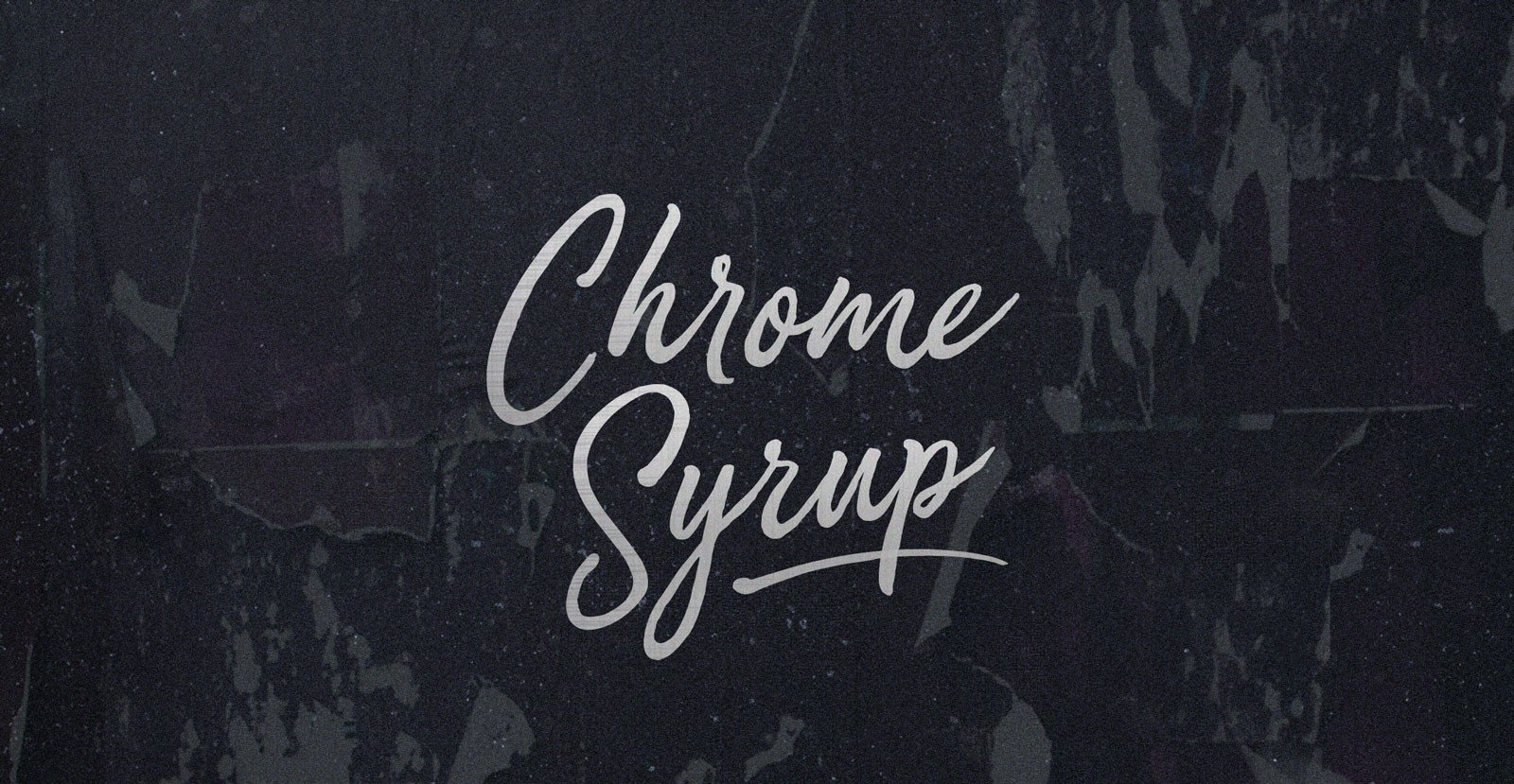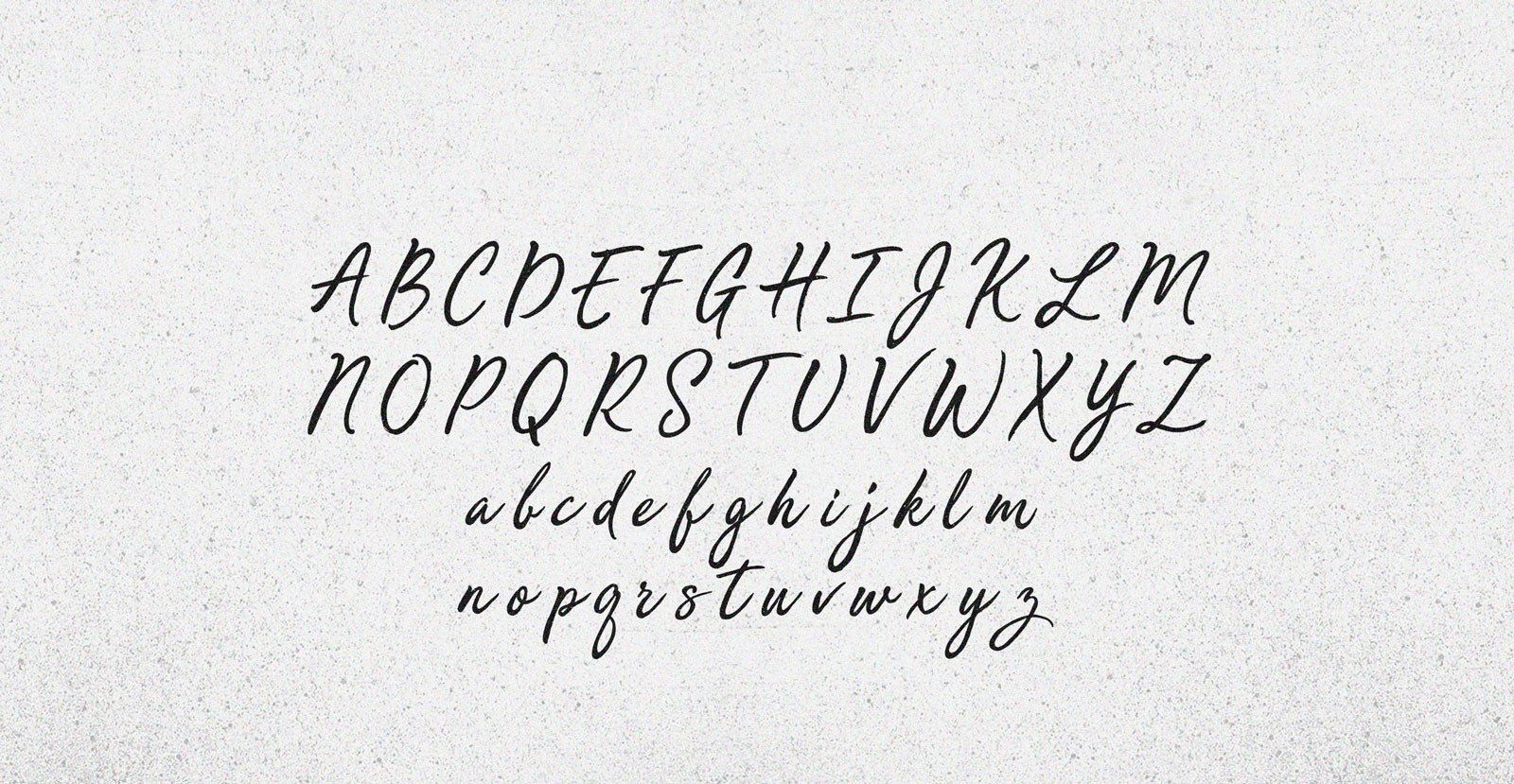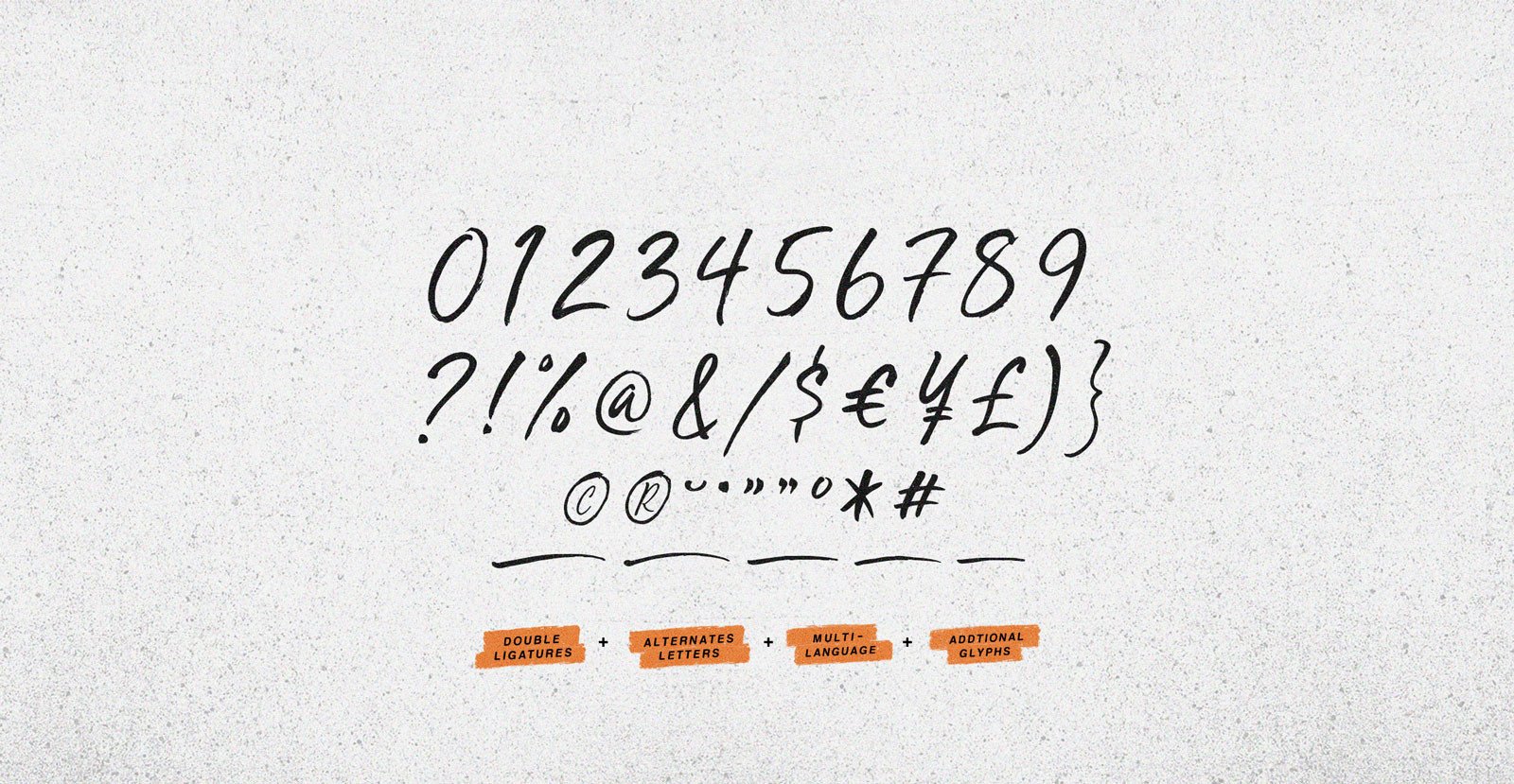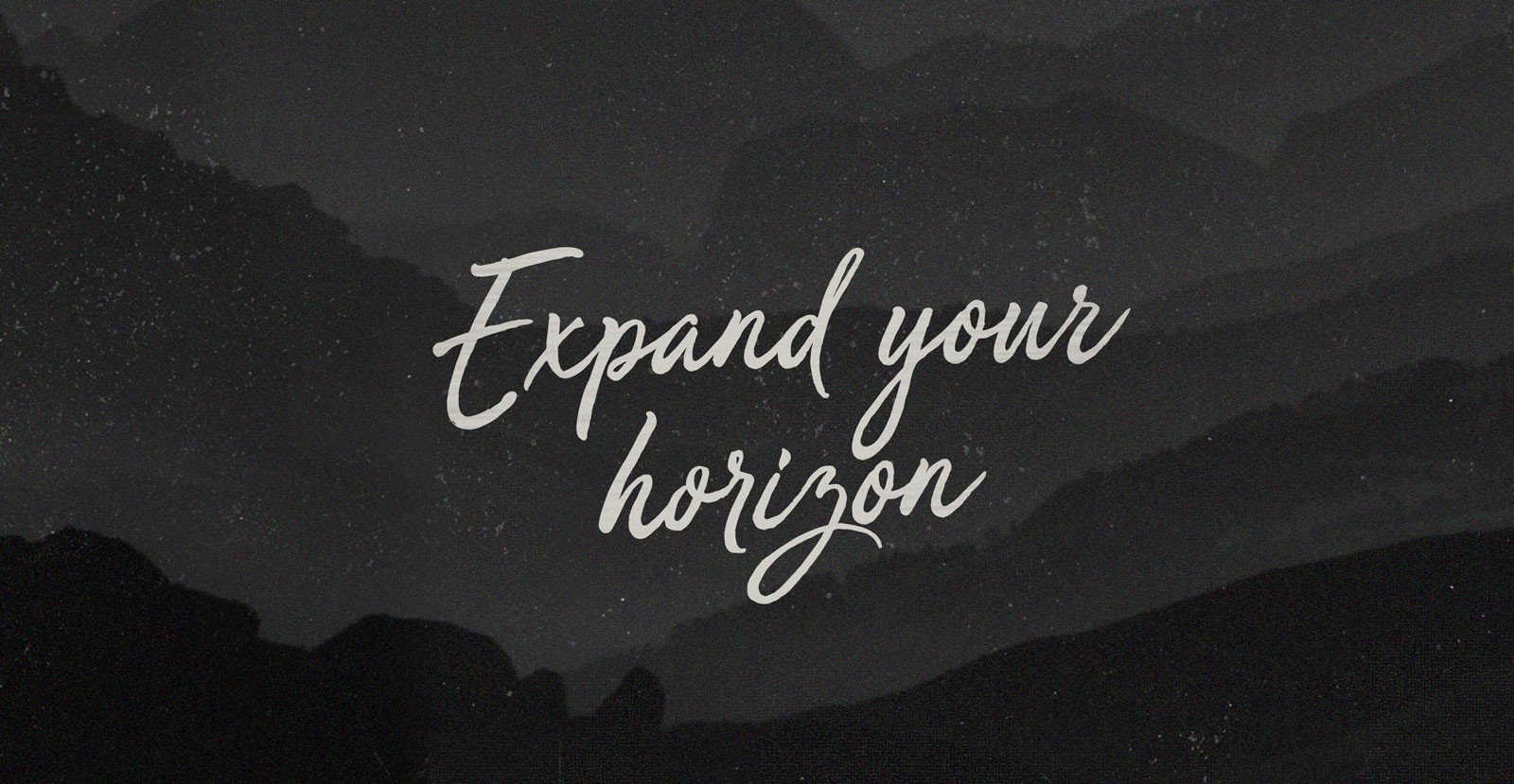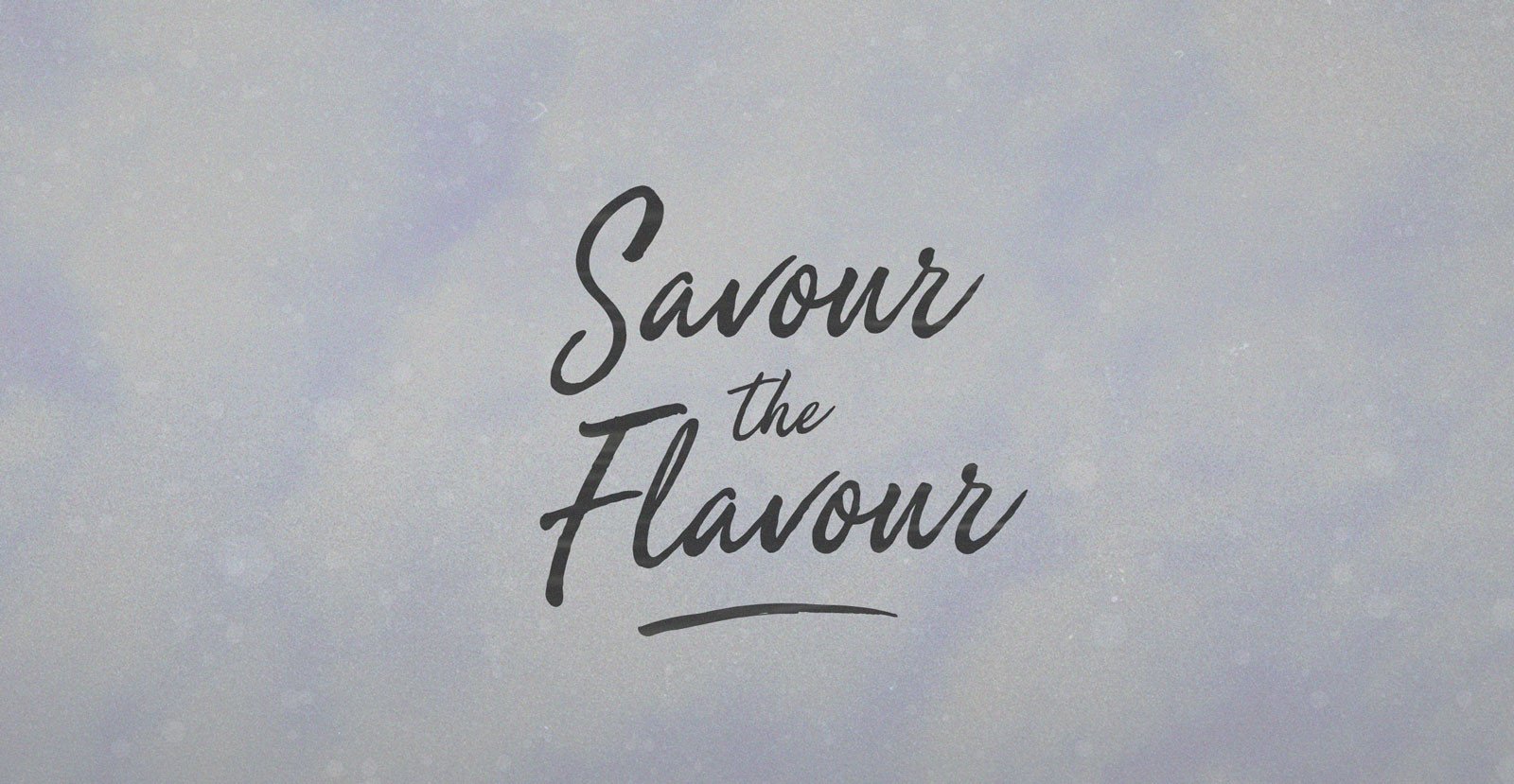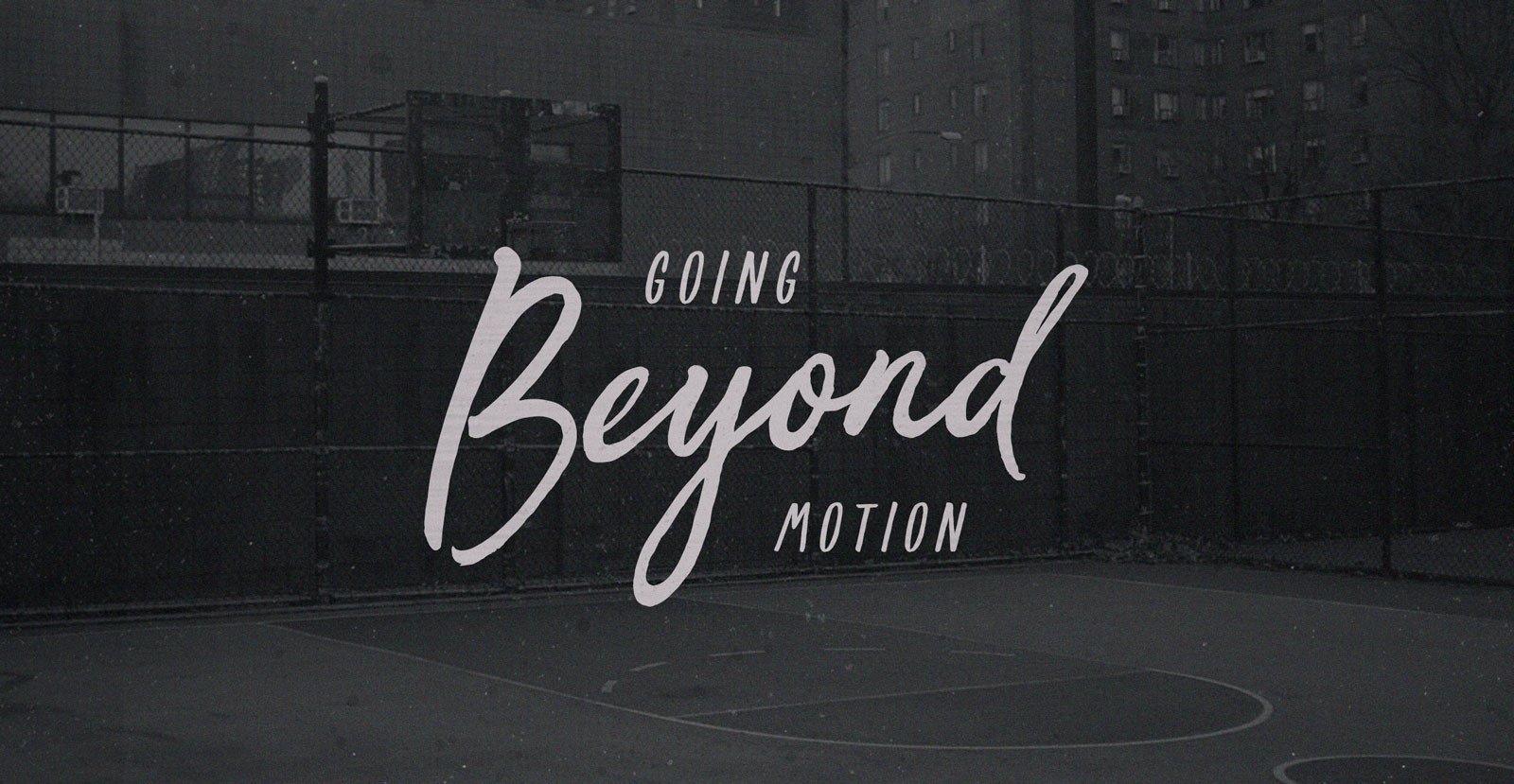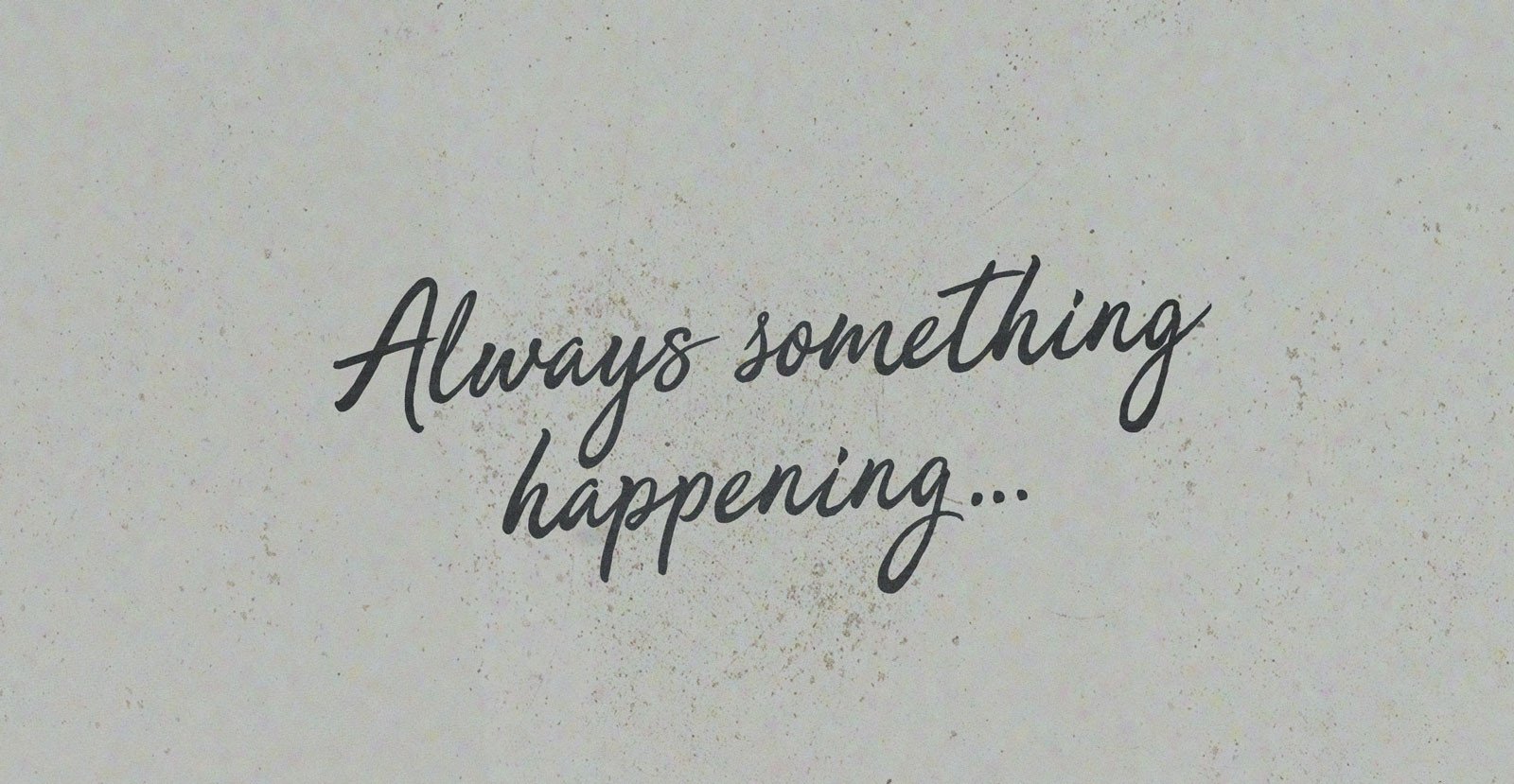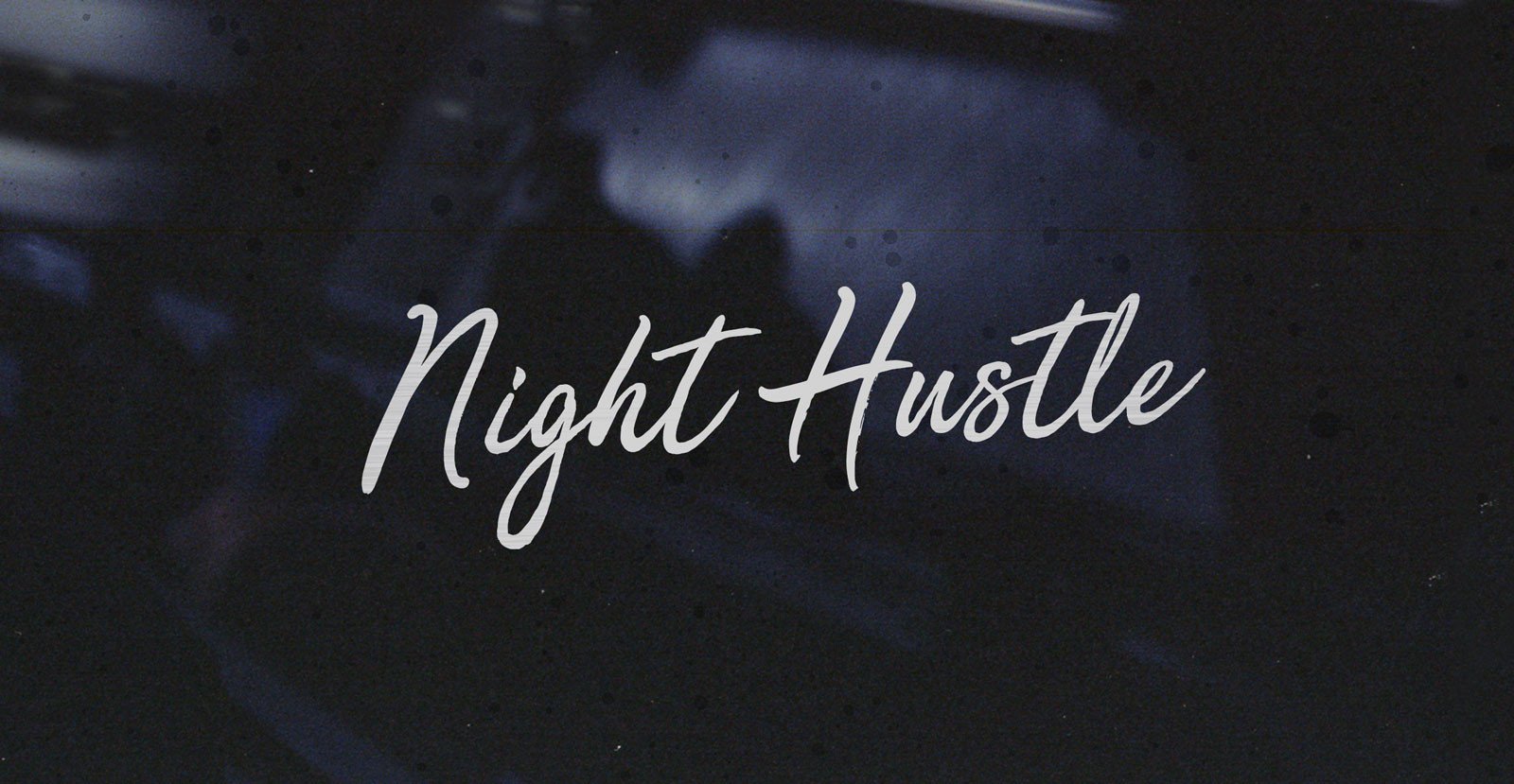
Chrome Syrup
Here we are, giving matter mad shine. Mad as bathing hot cakes in mercury, dripping off quick like silver, steeling with a sticky sparkle. Chrome Syrup in squeeze bottles, in the door of your fridge, to the door of your car, decorating plates like caramel.